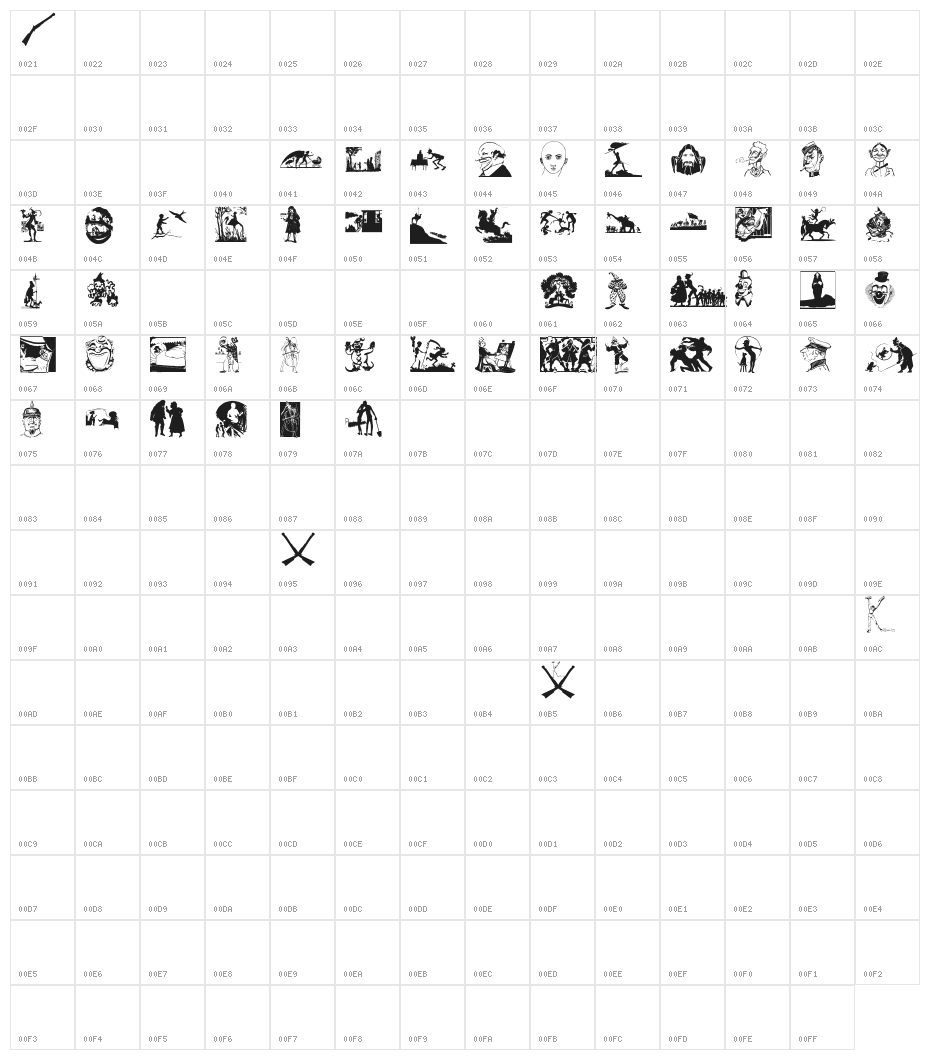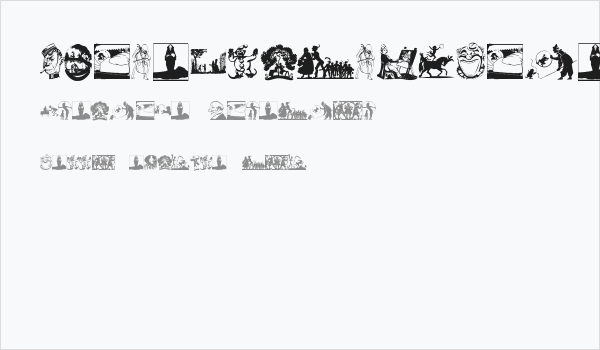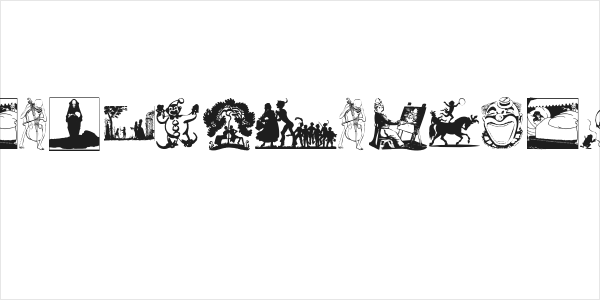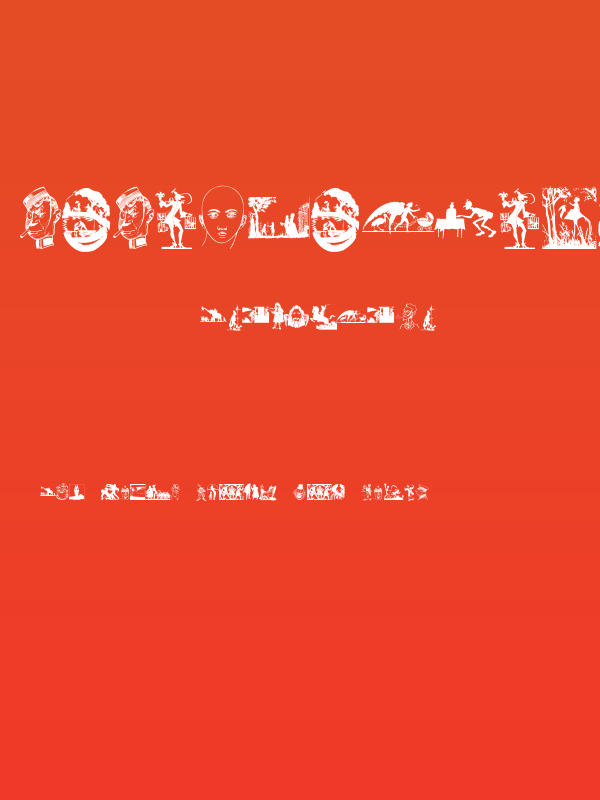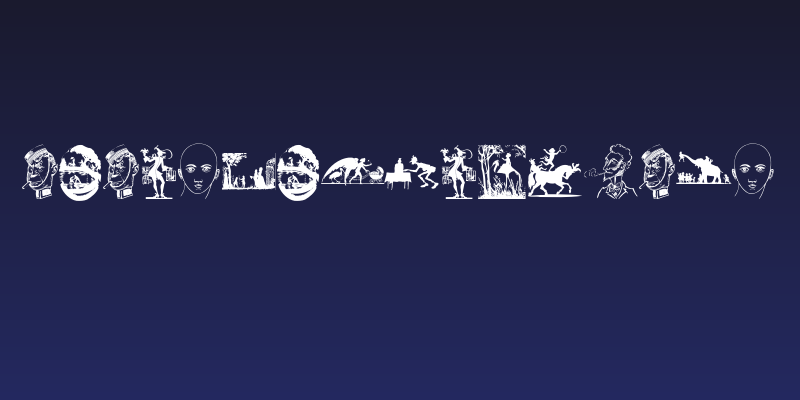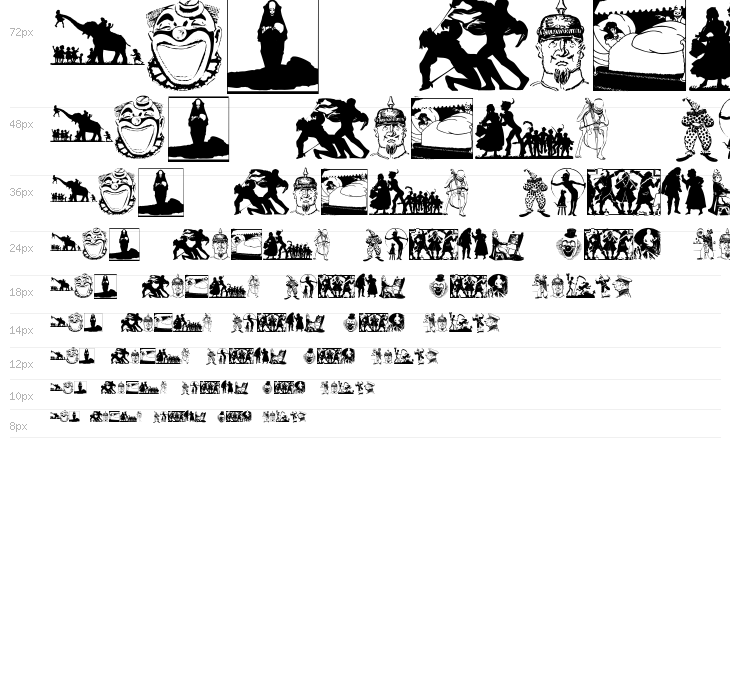
ILikeBlacknWhite Font
ILikeBlacknWhite Description
A highly decorative and illustrative font composed of detailed black and white silhouette drawings, each character represented by a unique scene or figure, often with theatrical, whimsical, or dramatic themes.
| Overall Style | Decorative, Artistic, Whimsical |
| Use Case | Logos, Headlines, Posters, Artistic projects |
| Proposed Projects | Posters, album covers, theatrical programs, art projects, creative branding, event invitations. |